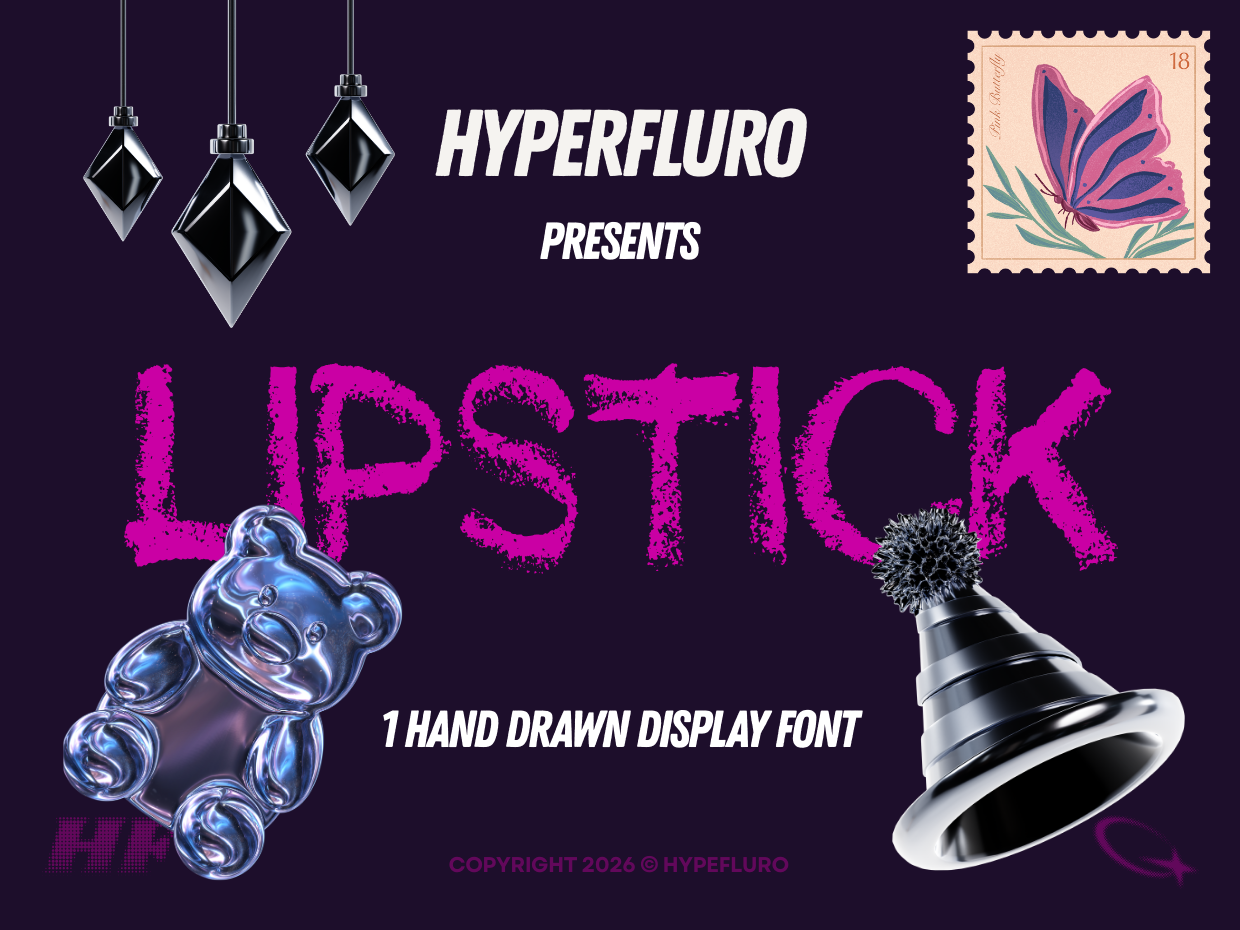
Lipstick Font No Tutorial Required
Lipstick font tutorials are no longer required! Lippy is a hand drawn script built to be the lipstick signature of your layouts. Every curve comes from real lipstick sketches that were scanned, redrawn in Illustrator and refined in FontLab, so the strokes keep that waxy, smudged authenticity you only get from the real thing.
Because the texture and flow come from actual makeup marks, Lippy feels instantly personal and cosmetic, perfect for beauty branding, social graphics, packaging, and headlines that need to look flirty, fun, and human rather than slick and corporate. It works especially well for product names, signatures, and short phrases where personality matters more than strict formality.